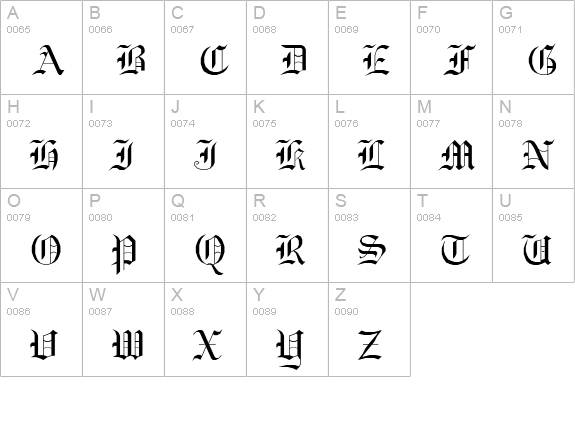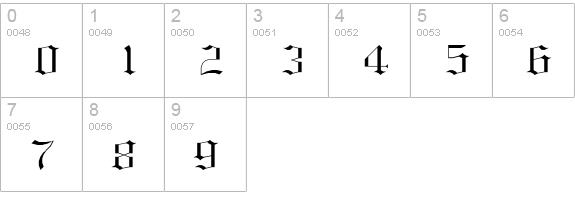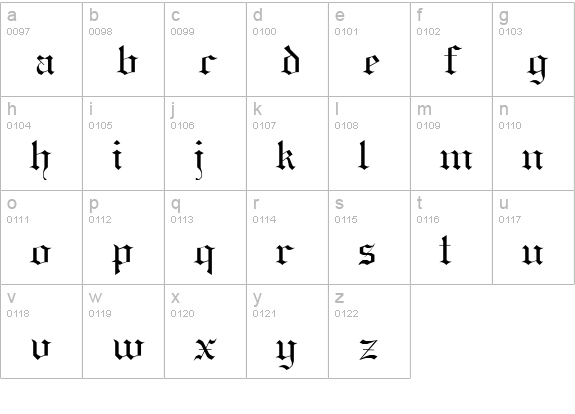
GothicE Font Details
Introducing GothicE font - a captivating display typeface that exudes a dark and mysterious aura. With its intricate letterforms and ornate details, GothicE is perfect for adding a touch of gothic elegance to your projects. This font is ideal for branding, book covers, posters, and other design projects that call for a touch of dramatic flair. What's even better is that GothicE is completely free to download at FontsMarket.com. So, whether you're a designer looking to add a gothic twist to your creations or simply a font enthusiast seeking something unique and eye-catching, GothicE is the perfect choice. Download it today and unleash the power of this stunning typeface in your designs.